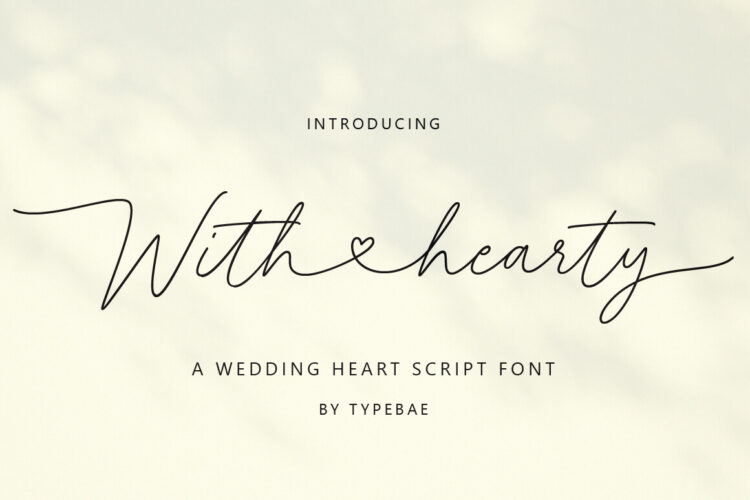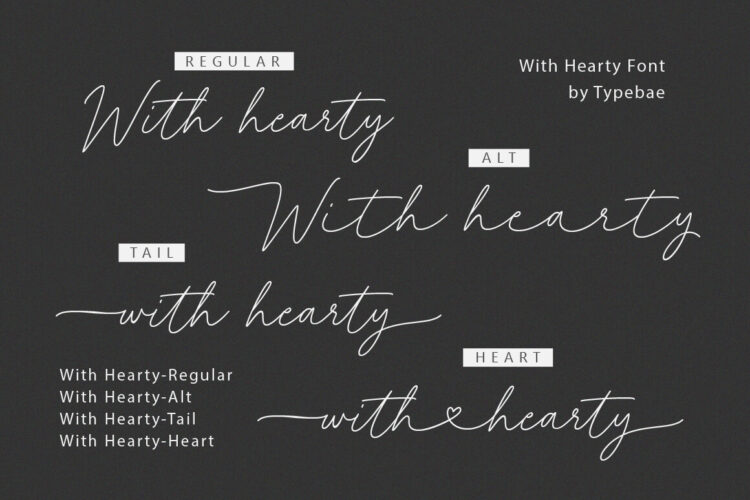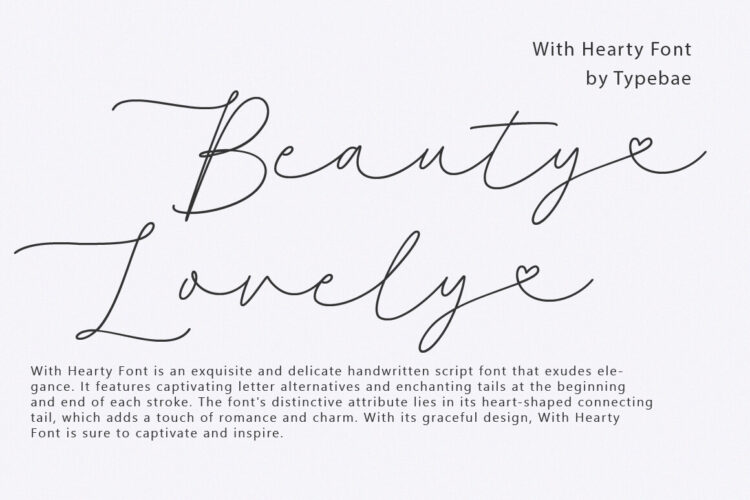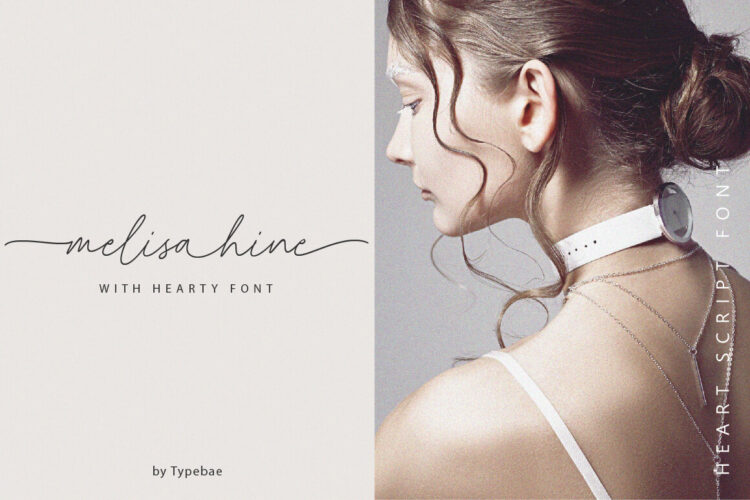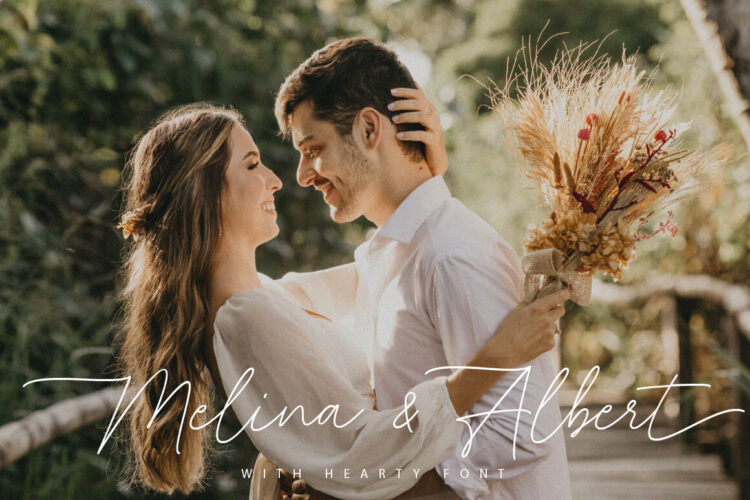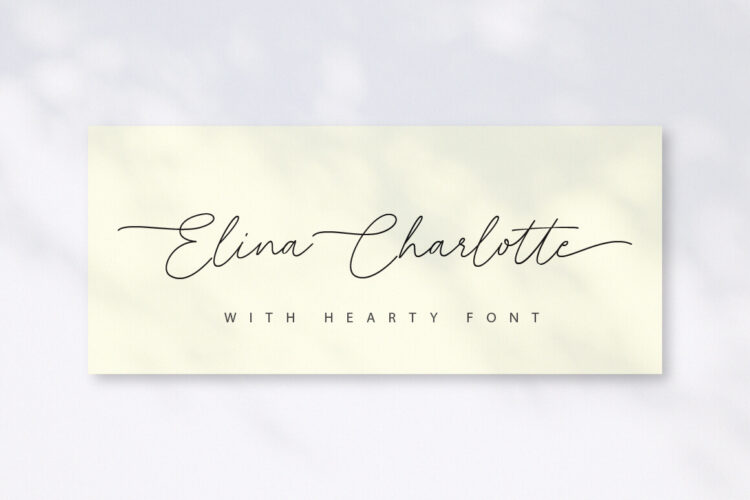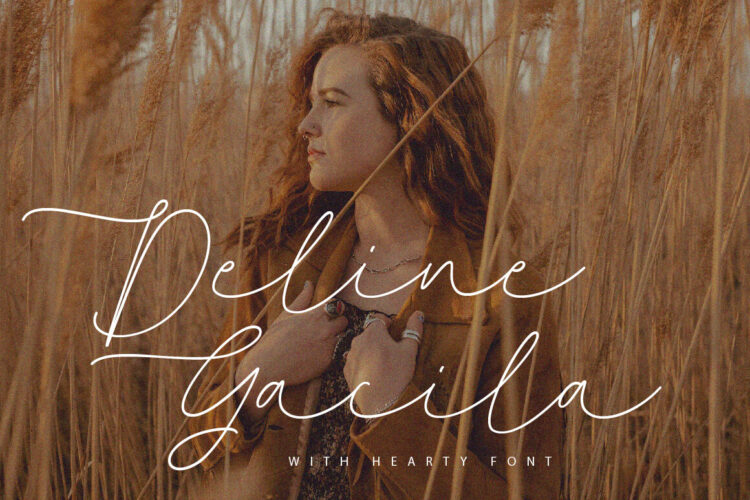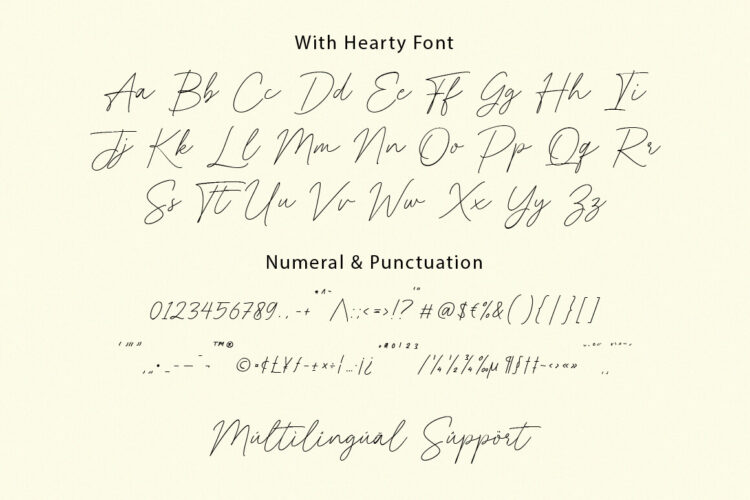
Wedding Heart Script Font
With Hearty-Regular
With Hearty-Alt
With Hearty-Heart
With Hearty-Tail
With Hearty Font is an exquisite and delicate handwritten script font that exudes elegance. It features captivating letter alternatives and enchanting tails at the beginning and end of each stroke. The font’s distinctive attribute lies in its heart-shaped connecting tail, which adds a touch of romance and charm. With its graceful design, With Hearty Font is sure to captivate and inspire.